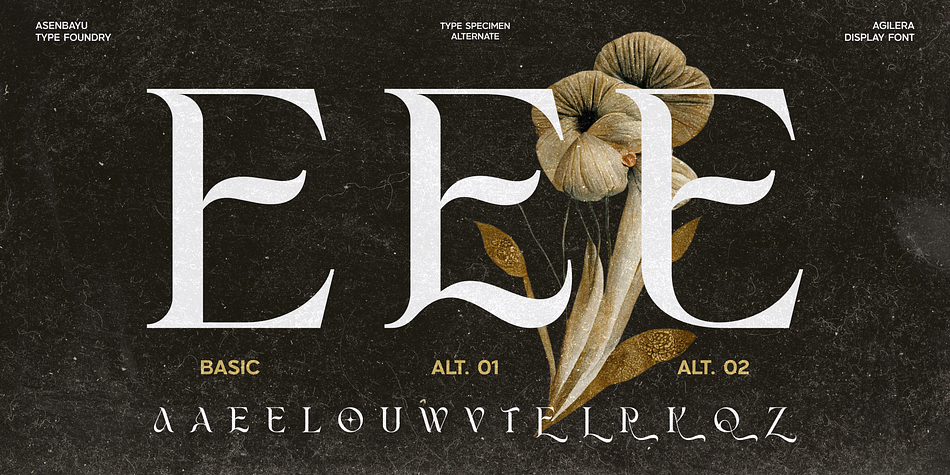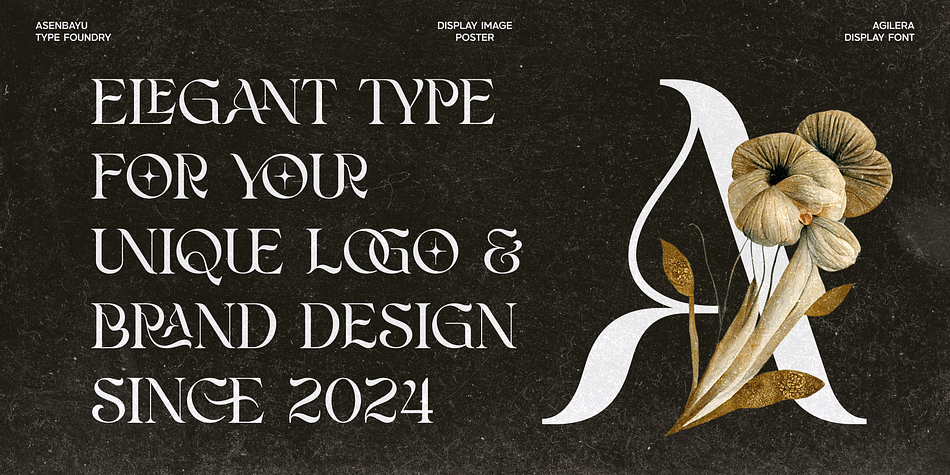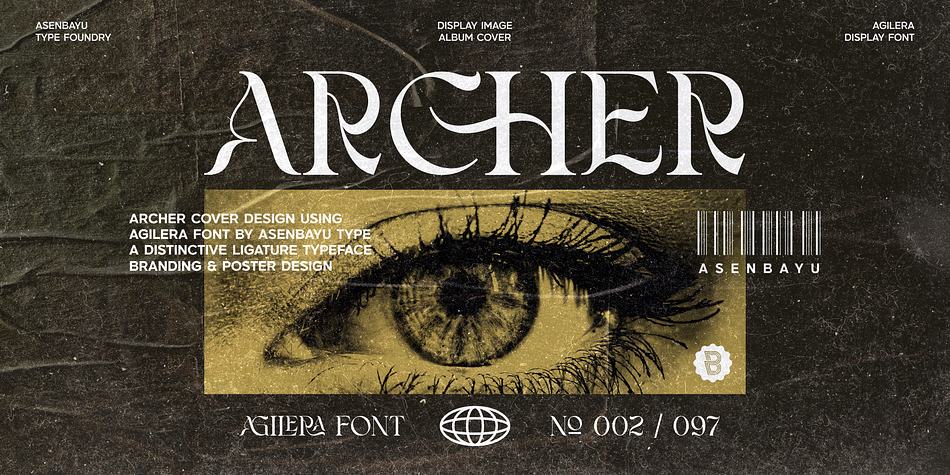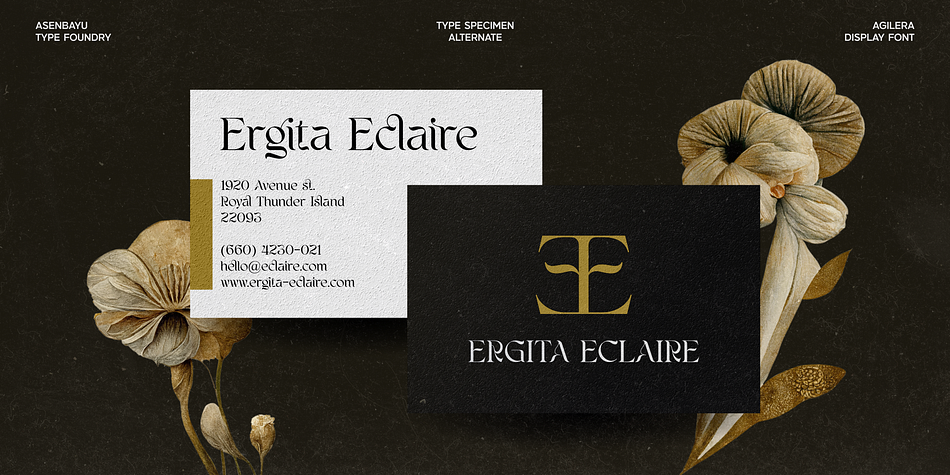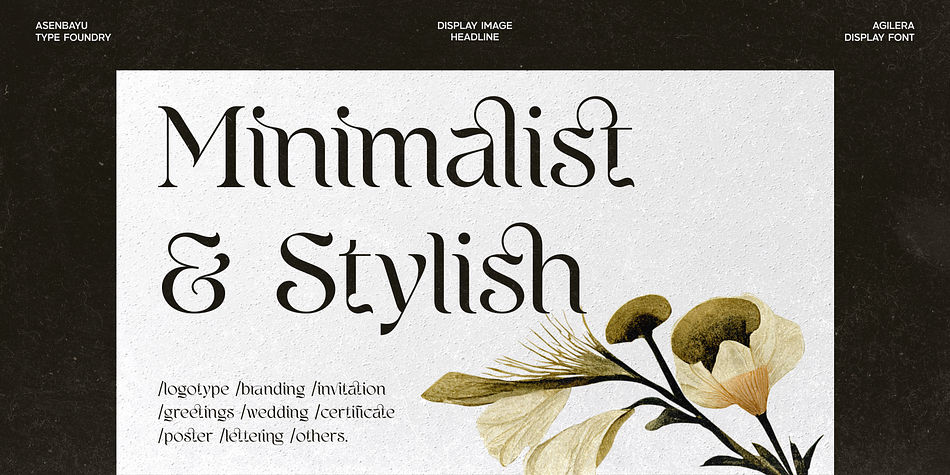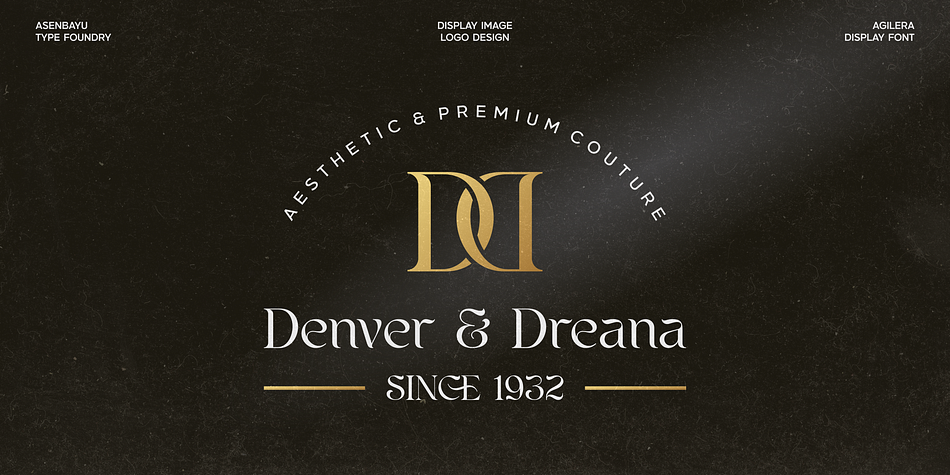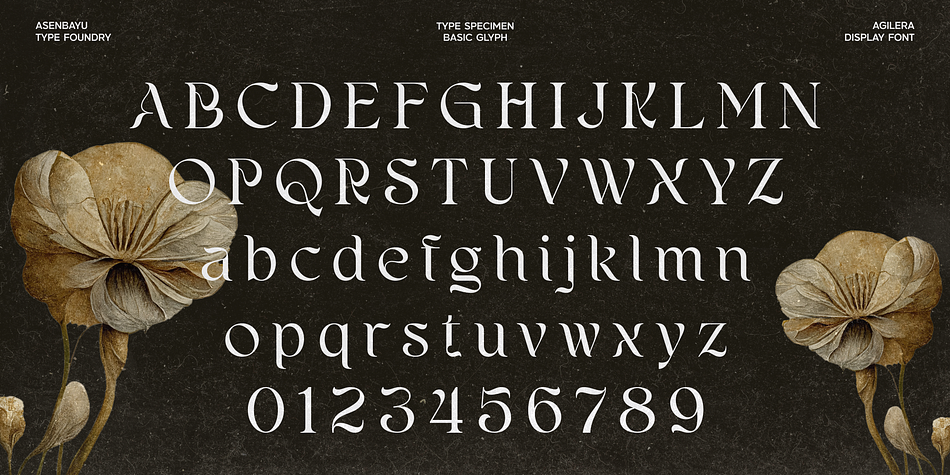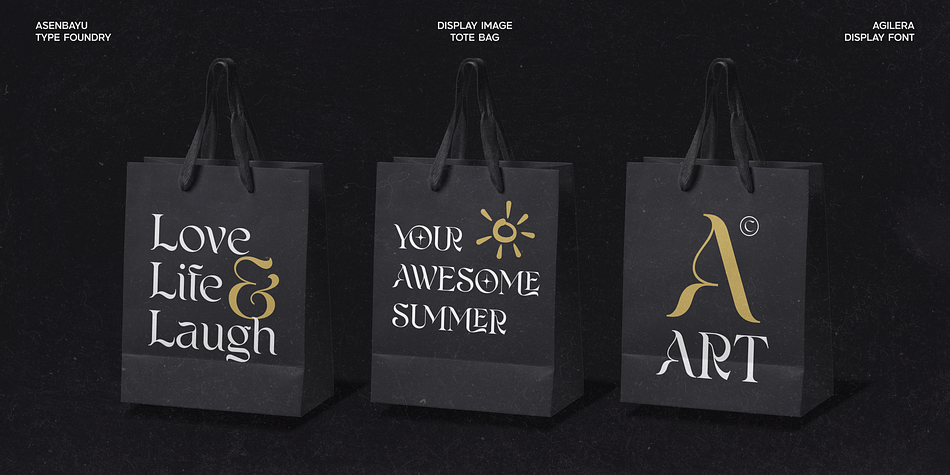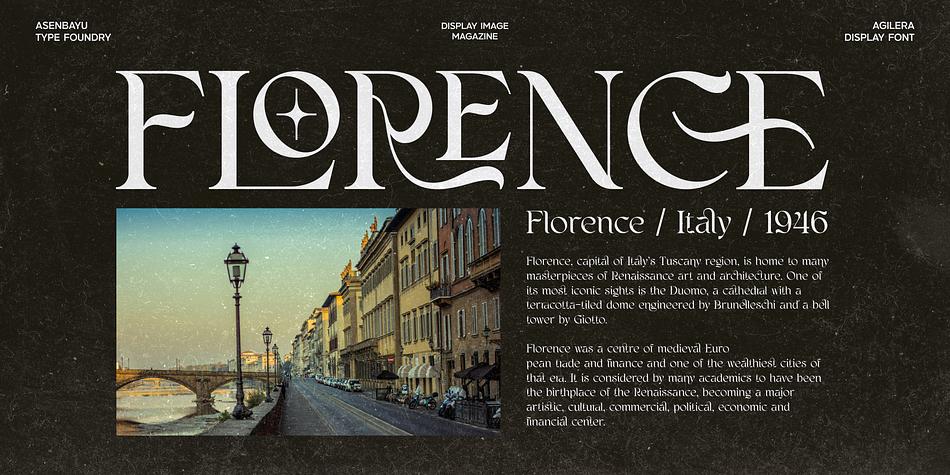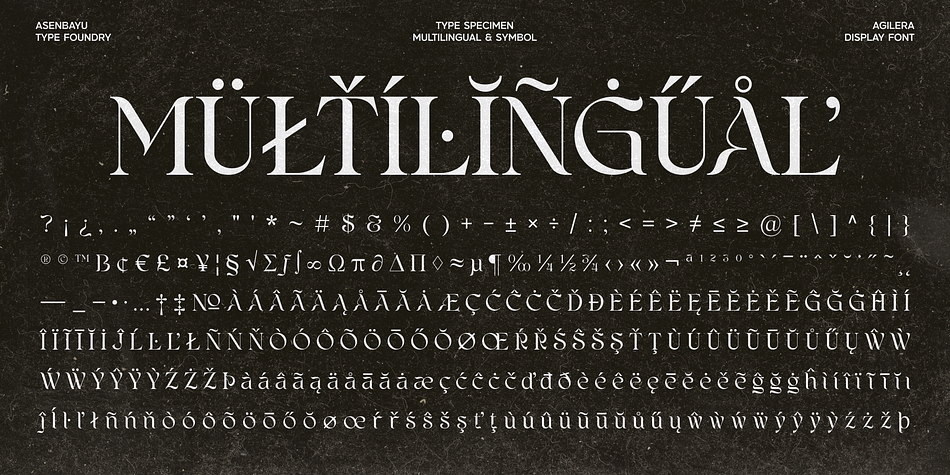
Agilera
Agilera is a serif font family published by Asenbayu.
Agilera is a unique and elegant ligature font. Influenced by the Art Nouveau style, the font incorporates flowing, organic lines and curves. The font exhibits high contrast between thick and thin strokes, which adds drama and a striking visual appeal. This gives a minimalist and stylish impression.This font is suitable for trendy packaging label designs, unique desired logos and branding, poster designs, fashion and many more.
Agilera font features:
- Standard glyph
- Stylistic alternates & stylistic ligatures
- Symbol & punctuation
- Multiple languages supported.